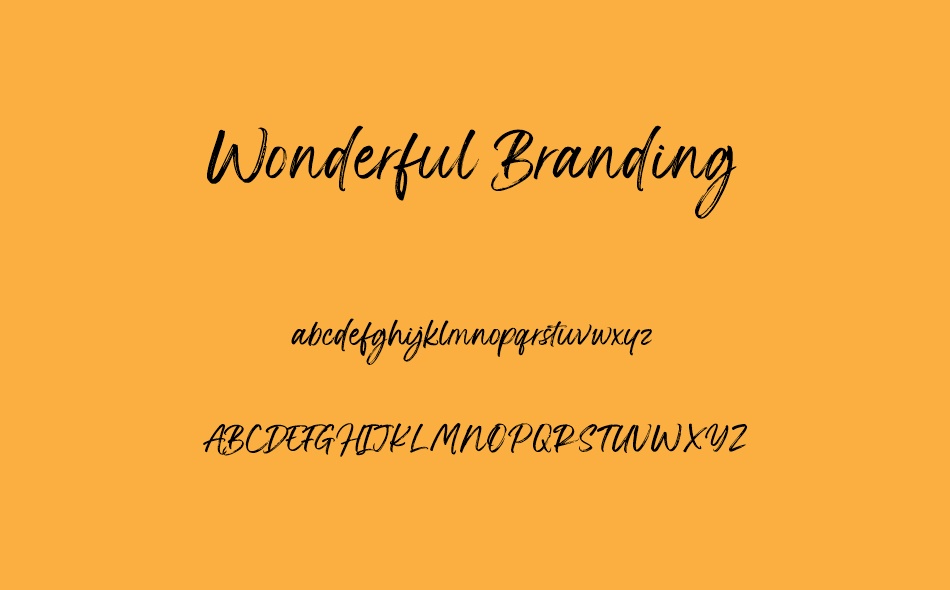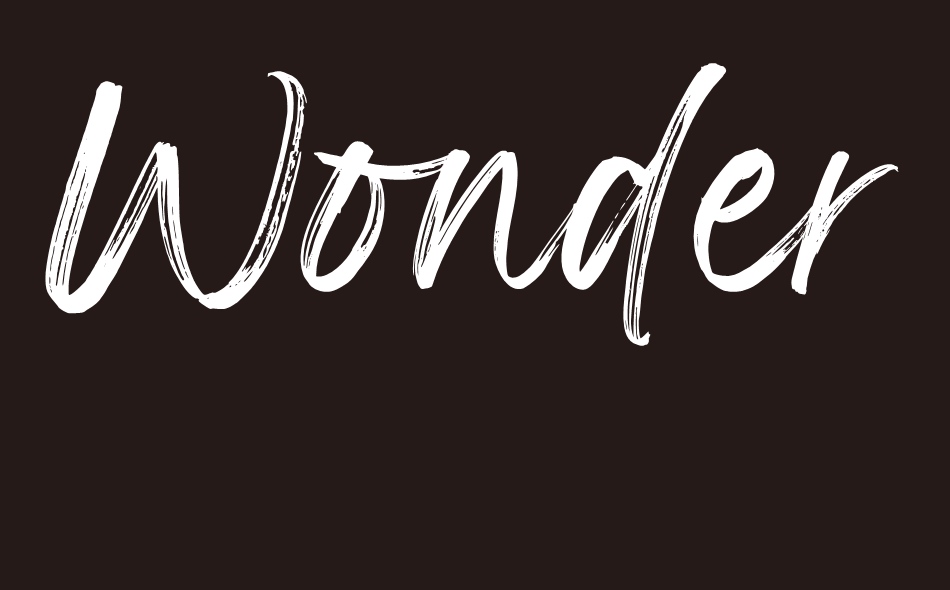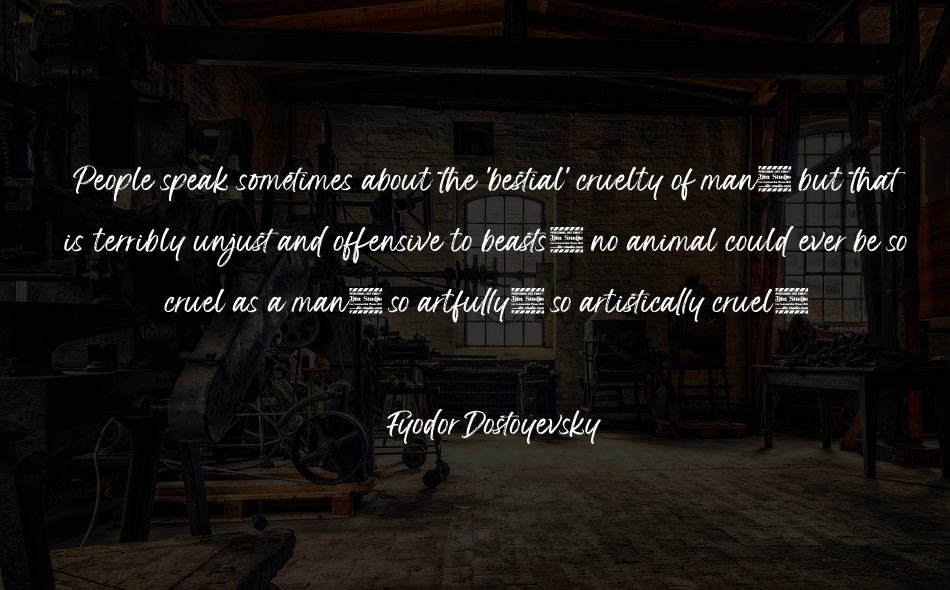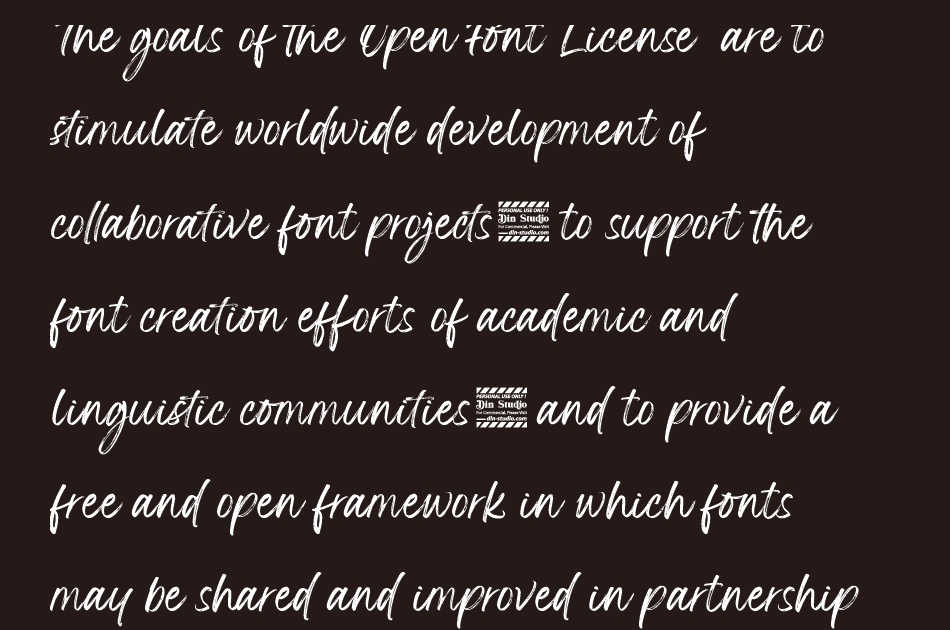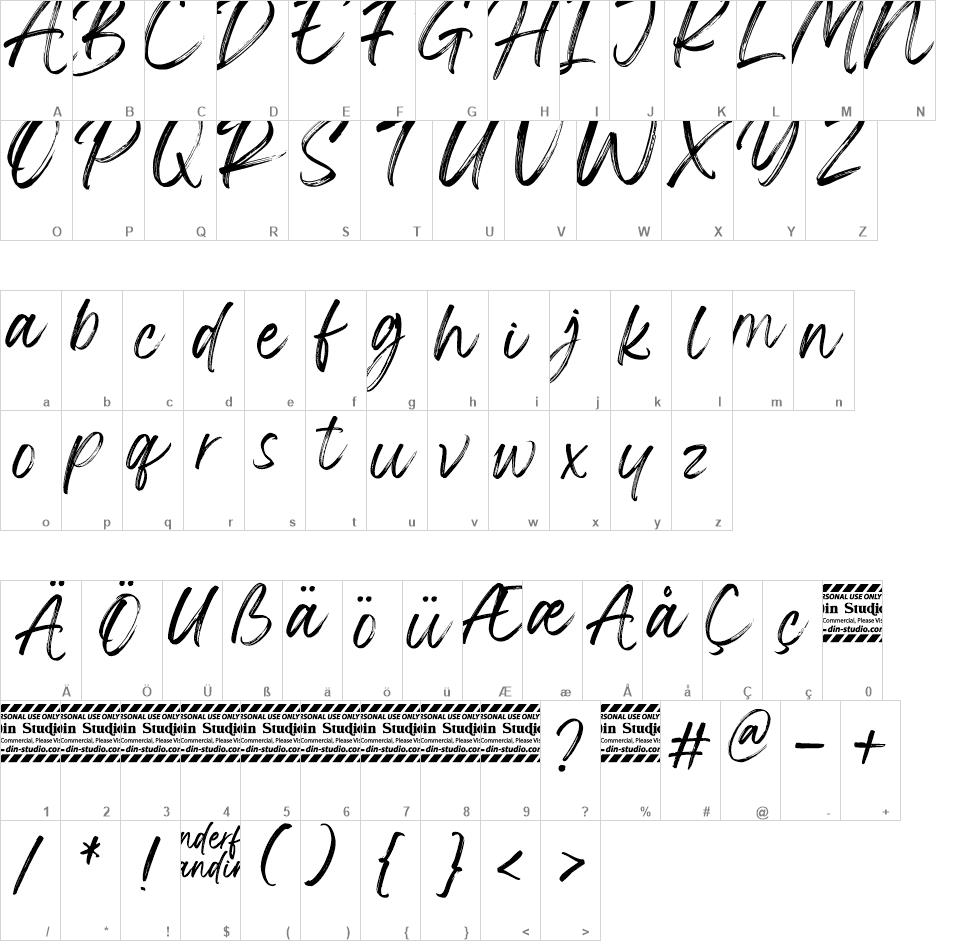
Wonderful Branding font
Wonderful Branding A Handwritten Brush Font
Giving you a simple, yet wonderful solution to your branding. This font is more than just another handwritten brush font. It encapsulates the essence of modernity and elegance. With elegance and passion edged into every curve and twist of this brush font youll be sure to boost your sales and make the best impressions. Use it for headings, logos, business cards, printed quotes, invitations of all sorts, cards, packaging, and your website or social media branding.
Wonderful Branding – A Handwritten Brush Font
Giving you a simple, yet wonderful solution to your branding. This font is more than just another handwritten
brush font. It encapsulates the essence of modernity and elegance. With elegance and passion edged into
every curve and twist of this brush font – you’ll be sure to boost your sales and make the best impressions.
Use it for headings, logos, business cards, printed quotes, invitations of all sorts, cards, packaging, and your
website or social media branding.
Wonderful Branding includes Multilingual Options to make your branding globally acceptable. See the previews
Features:
• Beautiful Ligatures
• Stylistic Sets
• Multilingual Support (84 languages)